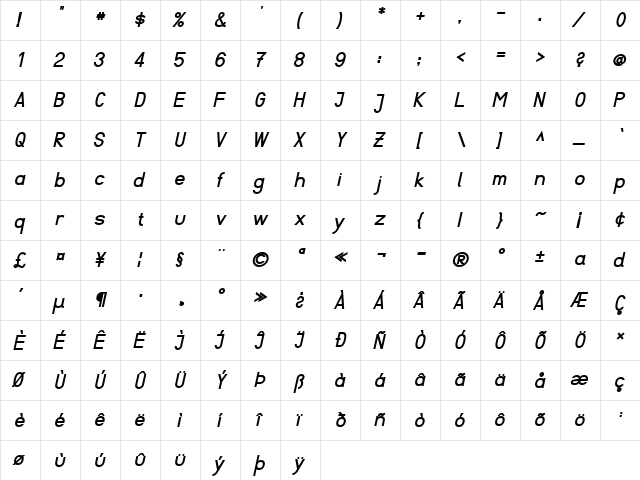
Fibel Sued Bold Italic
| Foundry | Peter Wiegel |
| Designer | Peter Wiegel |
Design Context for Fibel Sued Typeface
Fibel Sued offers clean, dependable letterforms without strong stylistic allegiance, making it a practical choice for designers who need flexibility. The slanted form adds forward momentum and visual energy. The heavy weight commands attention and anchors typographic hierarchies.